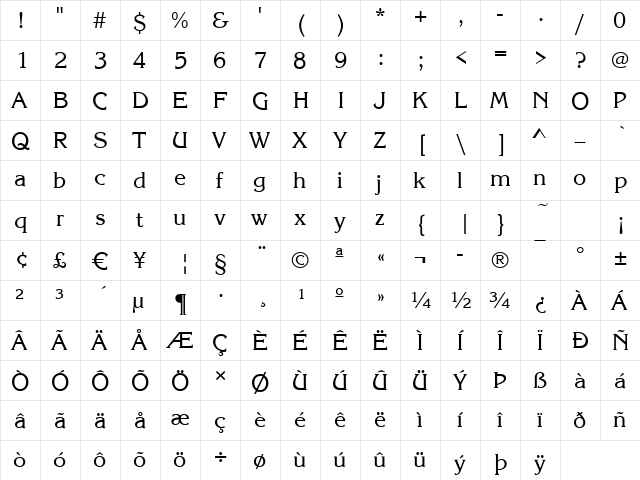
Kingston Regular
Design Context for Kingston Typeface
Kingston takes a measured approach to typography — its balanced proportions and neutral character make it a reliable workhorse for both digital and print work.